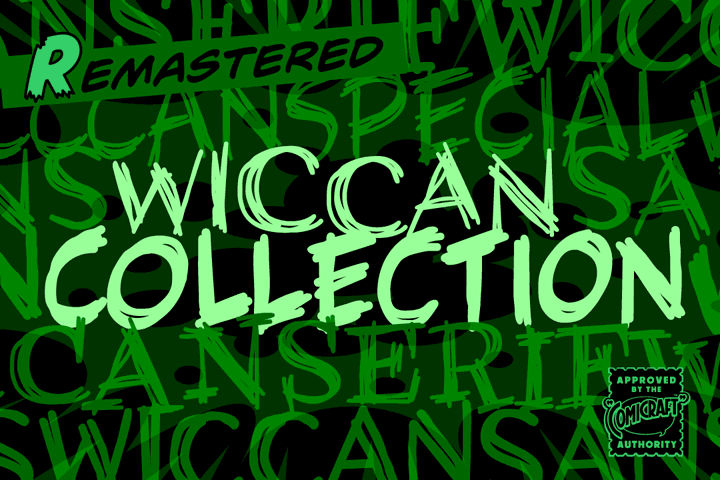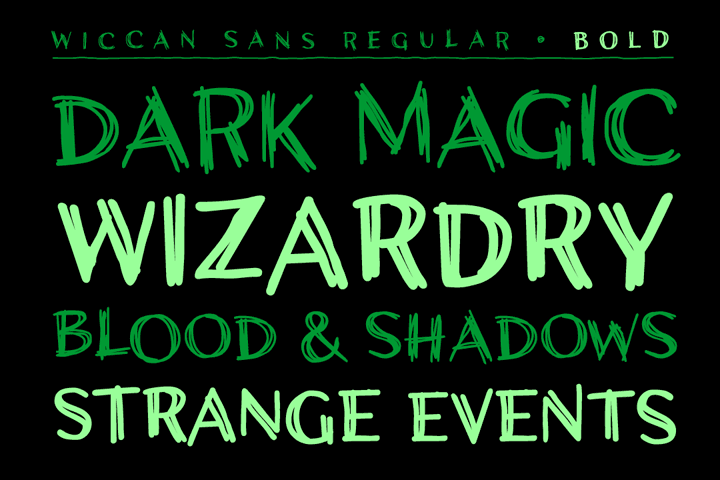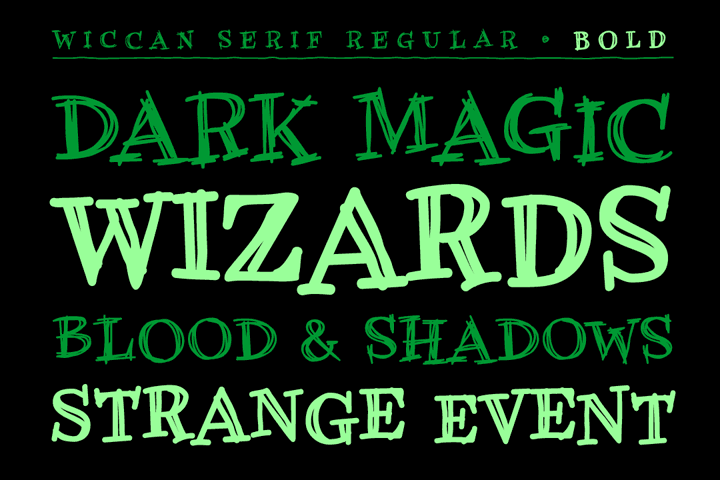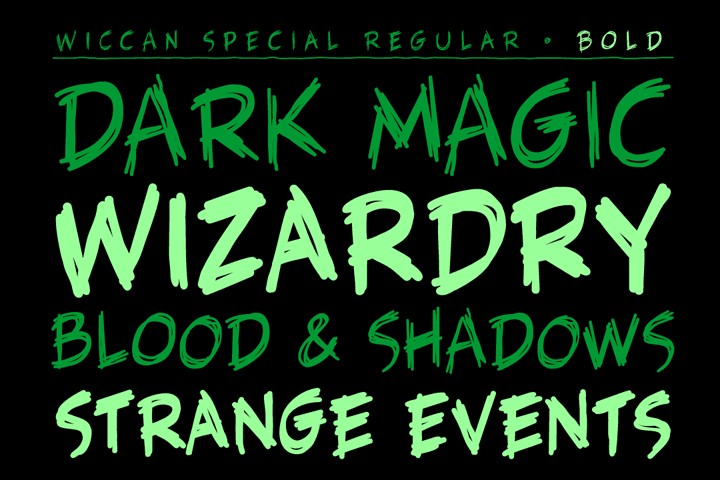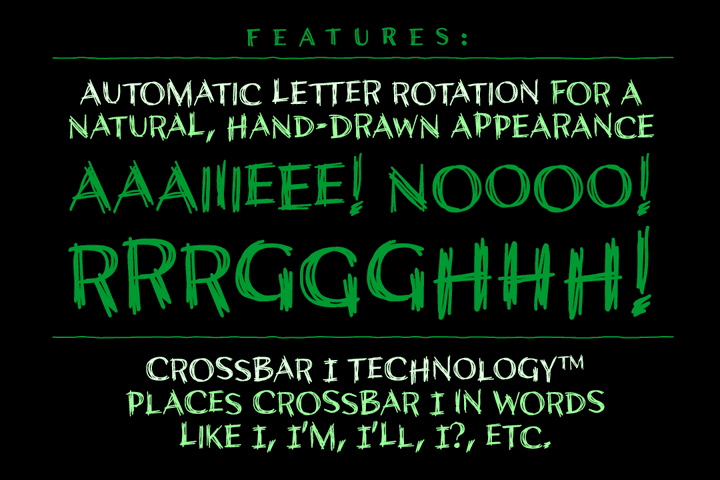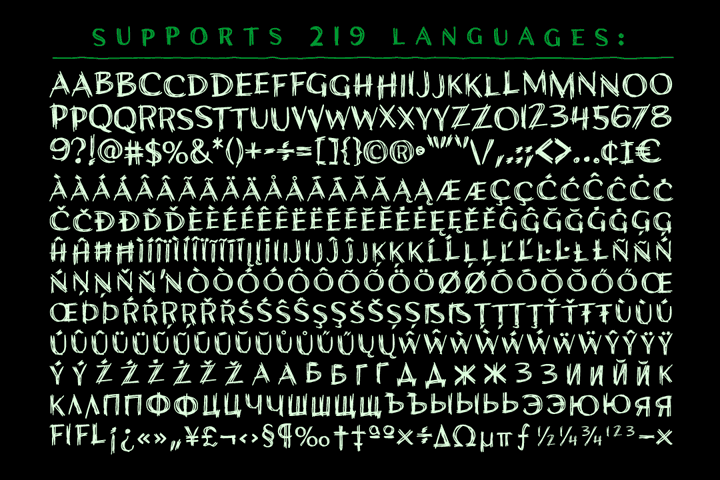
Wiccan Collection font
In 1996, three student letterers went into the forest looking for the mysterious fonts used to letter Spawn: Blood & Shadows. They never returned. A year later, their fonts were found.